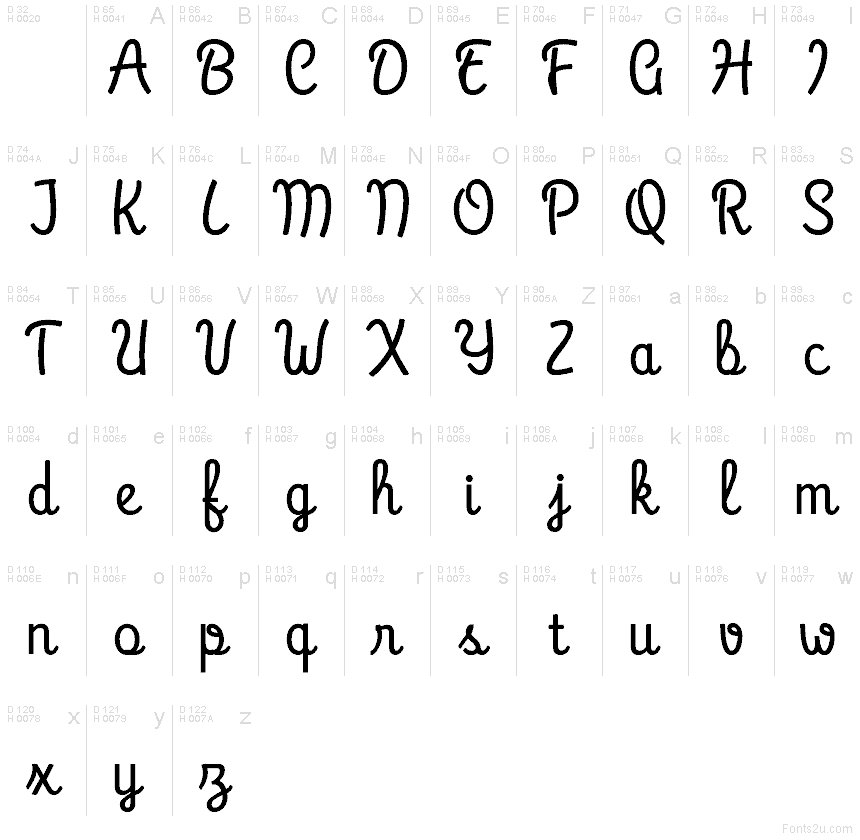
CS Brenda Regular Demo
CS Brenda font is a friendly handwritten font designed by Craft Supply Co. that carries casual elegance and modern script influences. The font features smoothly flowing lowercase letters, each with its own subtle variations which add a unique feel to your words. If you love the inviting aesthetic of human hand lettering, you’ve just found yourself another beautiful free variation.
Use CS Brenda for branding your businesses, designing product packages, or creating social posts. Other materials in which this font would fit are invitations, announcements, decorations, cards of all types (wedding invitations or greeting cards), letters, diaries and more!